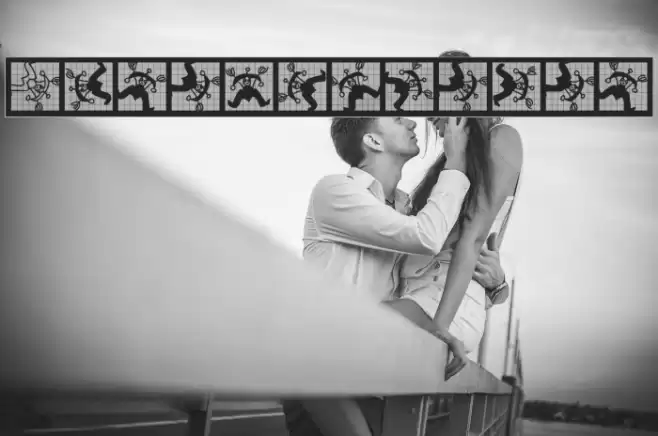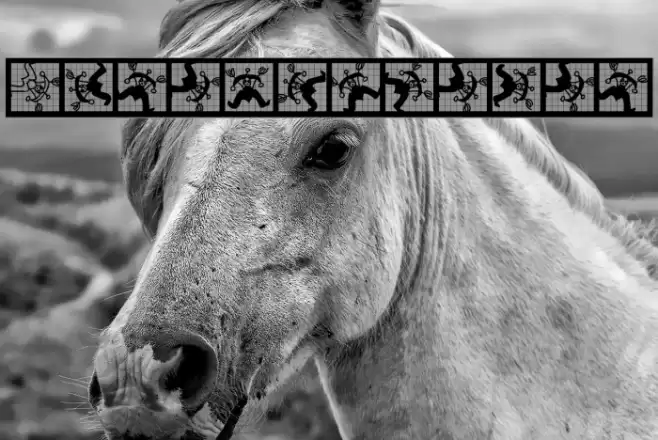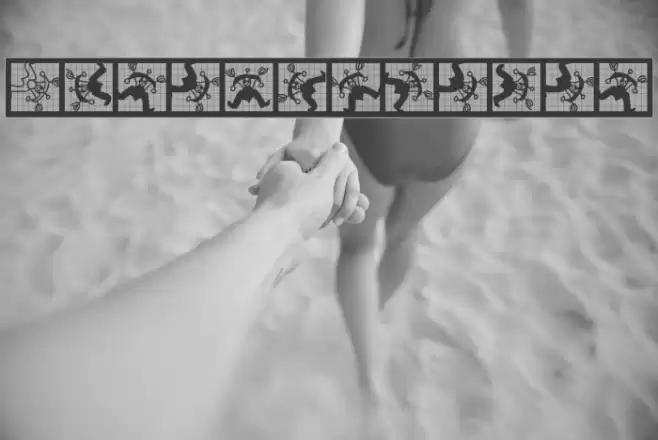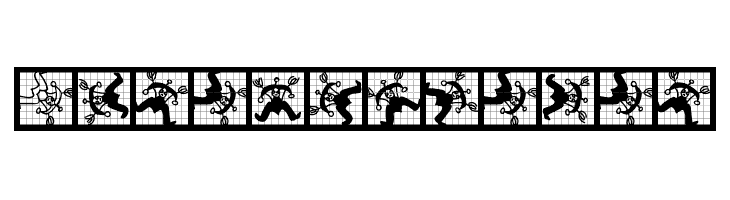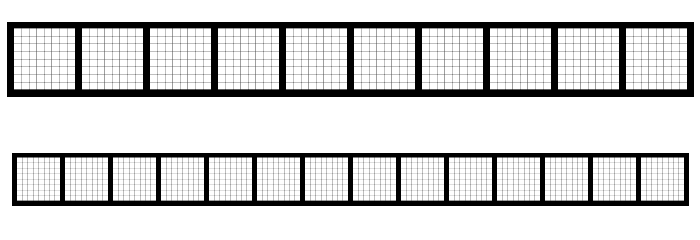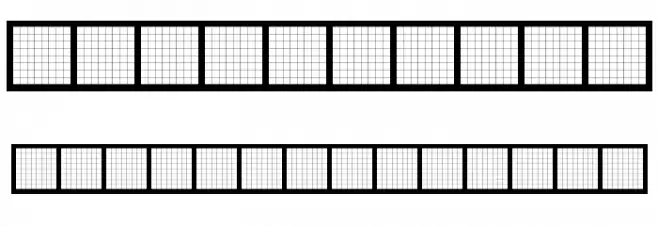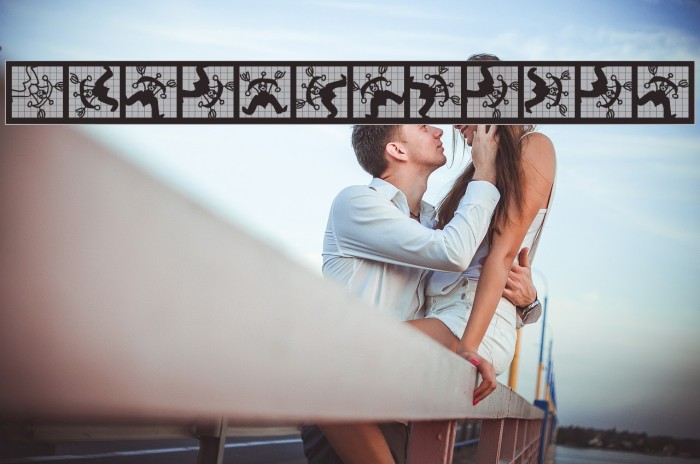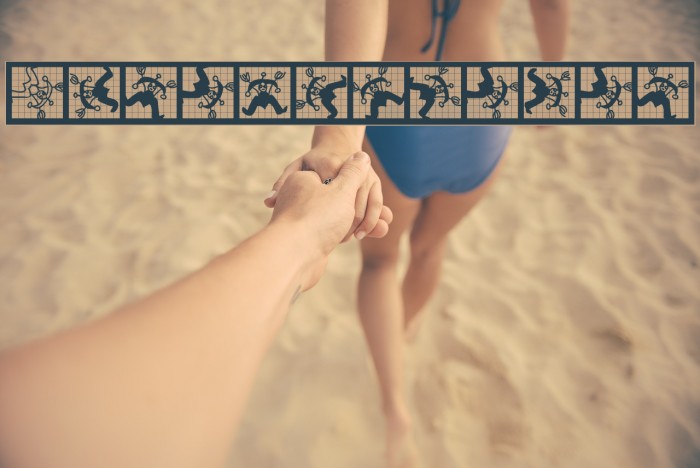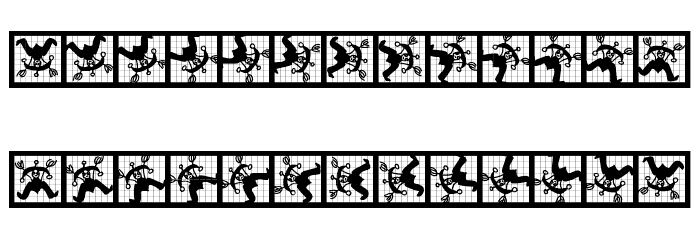
Eulenspiegel Font
Eulenspiegel Description
Highly decorative and whimsical dingbat-style font featuring playful, jester-like figures in each character cell, with strong black outlines and intricate line details. Each glyph is a unique illustration rather than a traditional letterform.
A decorative dingbat font with jester-themed illustrations from Uncategorized fonts.
- Proposed Projects: Children’s books, party invitations, playful branding, themed posters, decorative borders.
- Overall Style: Whimsical, Playful, Decorative
- Use Case: Decorative elements, Borders, Themed graphics